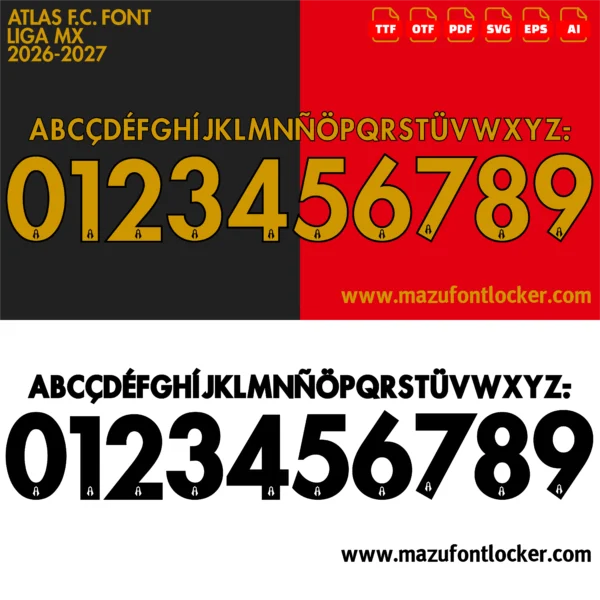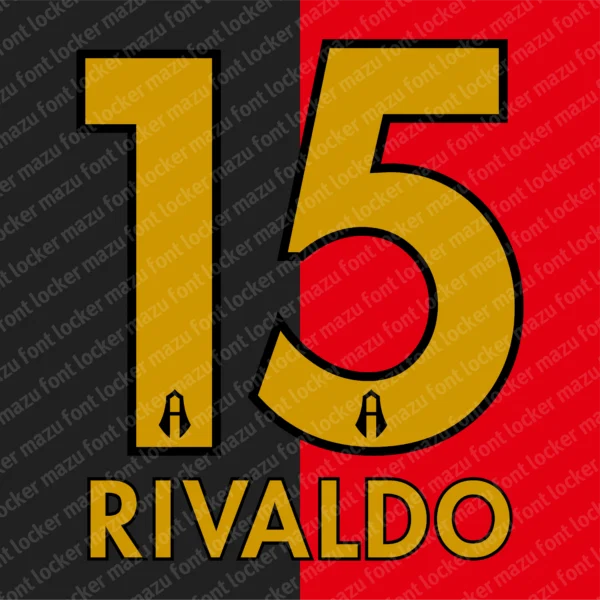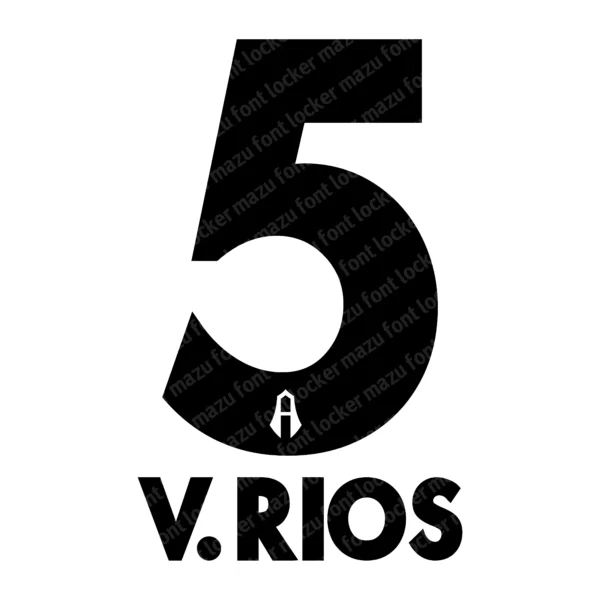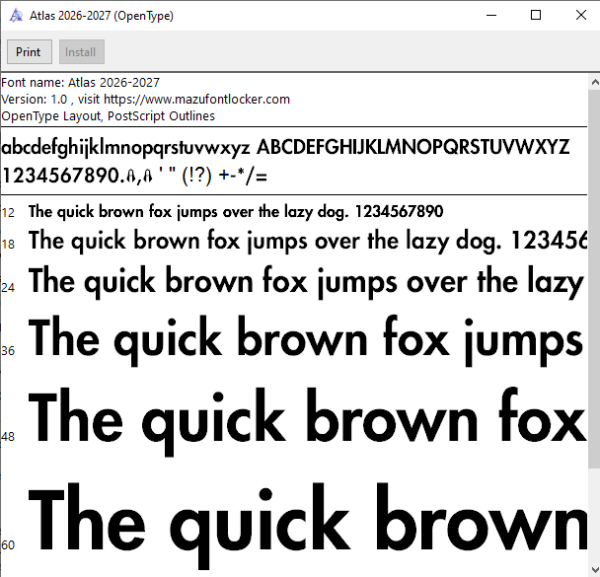
Atlas F.C. 2026-2027 Font Vector – Fierce Rojinegros Mexican Masterpiece
This font delivers the bold, commanding lettering that embodies Atlas F.C.’s iconic identity, working-class warrior mentality, and elite Liga MX intensity — perfect for professional jersey mockups, dynamic football graphics, premium sports branding, and high-impact fan designs.
Atlas F.C. 2026-2027 Font Vector – Bold Red & Black Matchday Typeface
The Atlas F.C. 2026-2027 Font Vector is a premium typeface that accurately recreates the distinctive match lettering associated with Atlas F.C. during the 2026-2027 football season. This high-quality vector font kit captures the bold, clean, and instantly recognizable typography that perfectly complements the club’s iconic red and black identity.
Designed for professional designers, football enthusiasts, jersey collectors, and passionate Atlas supporters, the Atlas F.C. 2026-2027 Font Vector delivers exceptional authenticity for creating realistic jersey mockups, football merchandise, social media graphics, match posters, squad designs, and custom fan artwork. Every character has been carefully recreated to reflect the powerful and precise visual style of one of Mexico’s most traditional and passionate football clubs – Los Rojos.
Why Choose Atlas F.C. 2026-2027 Font Vector
This font stands out thanks to its precise vector construction and authentic club-inspired styling. Every letter and numeral has been meticulously recreated to match the distinctive football lettering aesthetic associated with Atlas F.C. during the 2026-2027 season and its Liga MX and CONCACAF campaigns.
Whether you’re producing professional football kit templates, custom jersey concepts, or eye-catching football content, the Atlas F.C. 2026-2027 Font Vector delivers a genuine match-ready appearance inspired by the identity of El Zorro.
The lettering featured in the Atlas F.C. 2026-2027 Font Vector combines clean geometric lines with bold modern proportions. The result is a premium and highly readable typeface that reflects Atlas F.C.’s proud football heritage, iconic red and black colours, Guadalajara identity, and the passionate support of Los Rojos.
- Complete uppercase A–Z alphabet and numbers 0–9 in authentic Atlas F.C. 2026-2027 inspired style
- Special Atlas badge glyph – Press the “:” (Colon) key to insert the club badge
The Atlas F.C. 2026-2027 Font Vector is an independently designed typeface package inspired by the official shirt lettering and visual identity associated with Atlas F.C. during the 2026-2027 football season. It has been carefully recreated for football enthusiasts, graphic designers, collectors, jersey creators, and fans producing custom football concepts, digital artwork, and fan-made projects. Please note that this is a fan-made design resource and is not an official product of Atlas F.C., Liga MX, CONCACAF, or any associated organization.